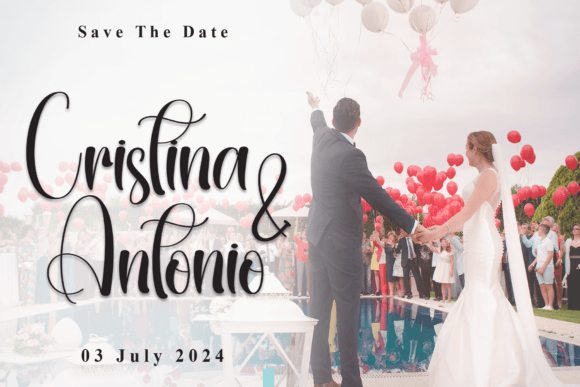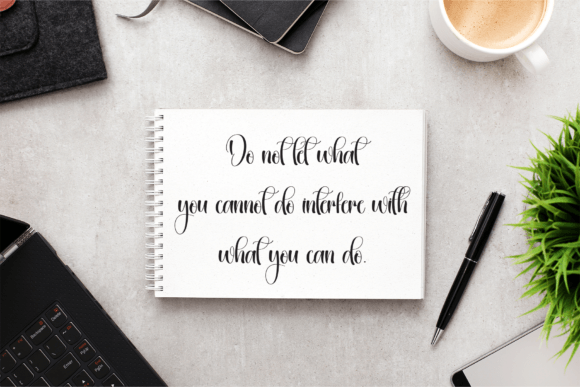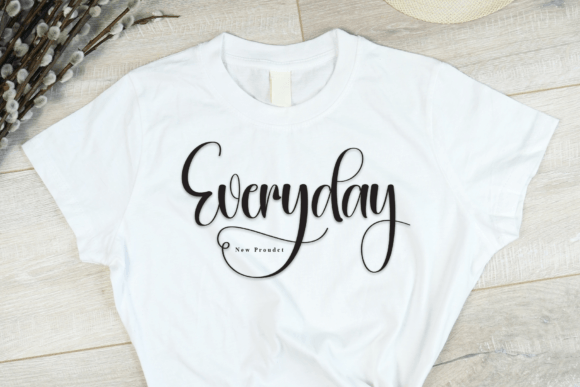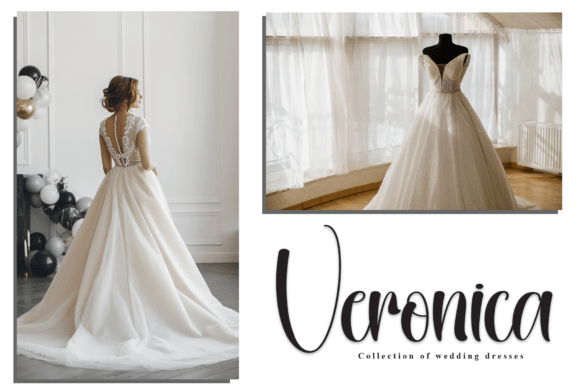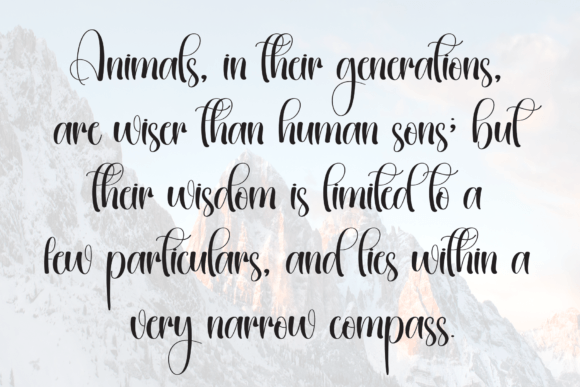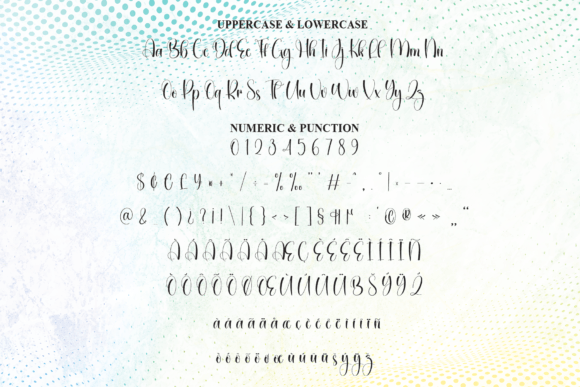
The Power of Design Font: Elevate Your Designs with Elegance and Charm
When it comes to creating visually stunning designs, the font you choose can make all the difference. A well-crafted font can add a touch of sophistication, elegance, and personality to your work. One such font that has been gaining popularity among designers and crafters is the Design Font, a stylish handwritten script font that exudes elegance and charm.
What is Design Font?
Design Font is a beautiful, handwritten script font that is designed to bring a sense of warmth and creativity to any design. Its fluid strokes and natural flow create a captivating, sophisticated look that is perfect for adding a personal touch to invitations, branding, or social media. The font’s elegant and charming appearance makes it an excellent choice for designers and crafters looking to add a touch of personality to their work.
Key Features of Design Font
- Fluid Strokes: Design Font features fluid strokes that give it a natural, handwritten look. The strokes are smooth and flowing, creating a sense of movement and elegance.
- Natural Flow: The font’s natural flow makes it easy to read and understand. The letters flow seamlessly into each other, creating a beautiful, cohesive look.
- Elegant and Charming: Design Font is designed to exude elegance and charm. Its sophisticated appearance makes it perfect for high-end designs, while its charming personality adds a touch of warmth and personality.
- Versatile: Design Font is a versatile font that can be used in a variety of designs, from invitations and branding to social media and more.
Uses of Design Font
Design Font is a versatile font that can be used in a variety of designs, including:
- Invitations: Add a touch of elegance and sophistication to your invitations with Design Font. Perfect for weddings, baby showers, and other special occasions.
- Branding: Use Design Font to create a unique and memorable brand identity. The font’s elegant appearance makes it perfect for luxury brands, while its charming personality adds a touch of warmth and approachability.
- Social Media: Add a touch of personality to your social media posts with Design Font. Perfect for creating engaging and eye-catching graphics, quotes, and more.
- Digital Art: Design Font is a great choice for digital artists looking to add a touch of elegance and sophistication to their work.
Benefits of Using Design Font
Using Design Font in your designs offers a range of benefits, including:
- Unique and Memorable: Design Font is a unique and memorable font that can help your designs stand out from the crowd.
- Elegant and Sophisticated: The font’s elegant and sophisticated appearance makes it perfect for high-end designs and luxury brands.
- Versatile: Design Font is a versatile font that can be used in a variety of designs, from invitations and branding to social media and more.
- Easy to Read: The font’s natural flow and fluid strokes make it easy to read and understand.
Tips for Using Design Font
Here are some tips for using Design Font in your designs:
- Use it Sparingly: Design Font is a bold and elegant font, so use it sparingly to avoid overwhelming your design.
- Pair it with Other Fonts: Pair Design Font with other fonts to create a unique and interesting look.
- Pay Attention to Spacing: Pay attention to spacing and kerning to ensure that your text is easy to read and visually appealing.
Design Font is a beautiful, stylish handwritten script font that exudes elegance and charm. Its fluid strokes and natural flow create a captivating, sophisticated look that is perfect for adding a personal touch to invitations, branding, or social media. With its versatility, elegance, and charm, Design Font is a great choice for designers and crafters looking to elevate their designs and add a touch of personality to their work.